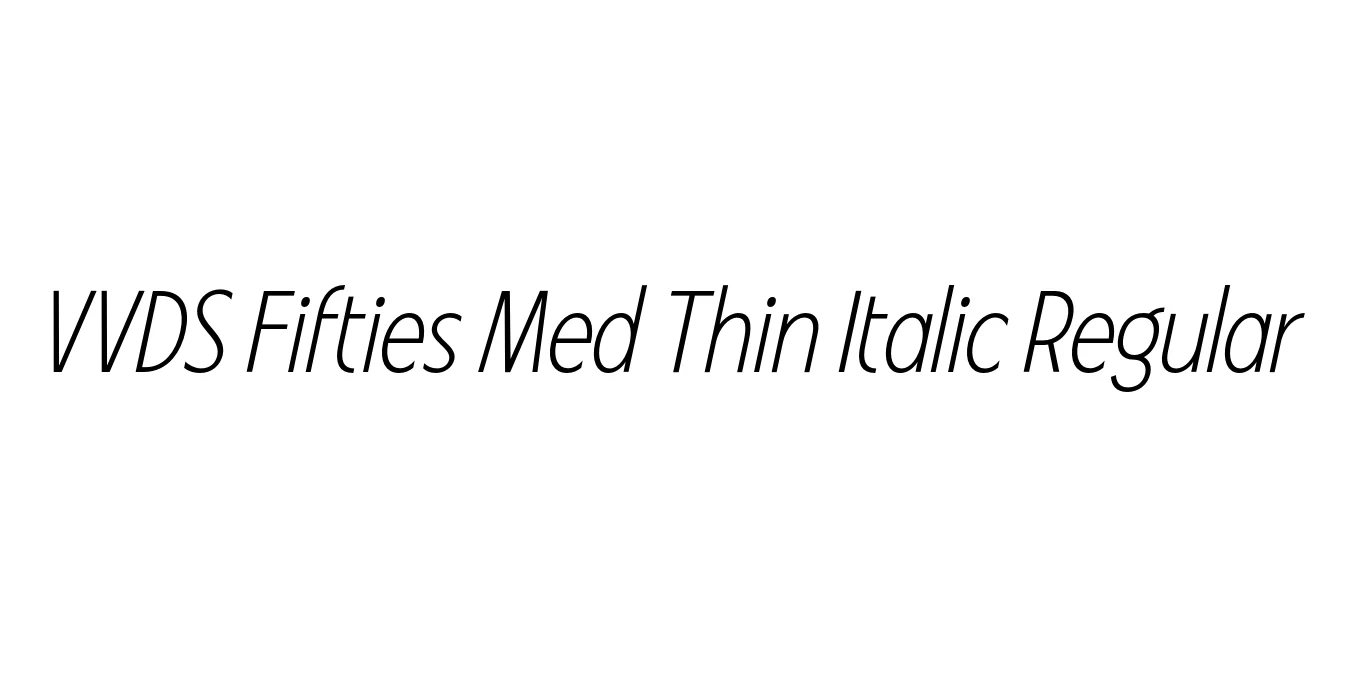
VVDS Fifties Med Thin Italic Regular
Designed by Pavel Korzhenko (Vintage Voyage Design Supply)
| Category | Sans-serif |
| Designer | Pavel Korzhenko (Vintage Voyage Design Supply) |
| Similar Fonts | Futura, Gill Sans, Neutraface, ITC Avant Garde Gothic |
VVDS Fifties Med Thin Italic Regular is a meticulously crafted typeface designed by Pavel Korzhenko, drawing inspiration from the vibrant and optimistic aesthetic of the 1950s. This font family captures the essence of mid-century modern design, blending geometric precision with a touch of humanistic warmth. The Med Thin Italic variant specifically provides a sleek, slanted profile that offers a refined and dynamic look, making it a standout choice for designers who want to evoke a specific historical era while maintaining a contemporary edge.
The typeface is part of the larger VVDS Fifties collection, which was built to be a versatile tool for graphic designers. By referencing the hand-lettered advertising and magazine headers of the post-war period, it brings a sense of authenticity to projects. Its thin strokes and balanced proportions ensure high legibility in display settings, while the italicized slant adds a level of sophistication and motion that is perfect for elegant branding and editorial layouts.
VVDS Fifties Med Thin Italic Regular Best Uses
Ideal for luxury and retro-themed corporate identities.
Perfect for sophisticated magazine headlines and pull quotes.
Great for high-end product labels seeking a nostalgic touch.
Excellent for posters and digital banners that need a classic feel.